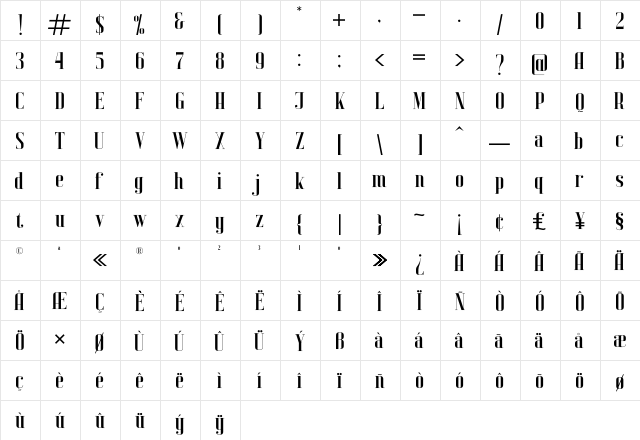
Alison finch Regular
| Designer | Kong esport |
Design Context for Alison finch Typeface
Alison finch takes a measured approach to typography — its balanced proportions and neutral character make it a reliable workhorse for both digital and print work.